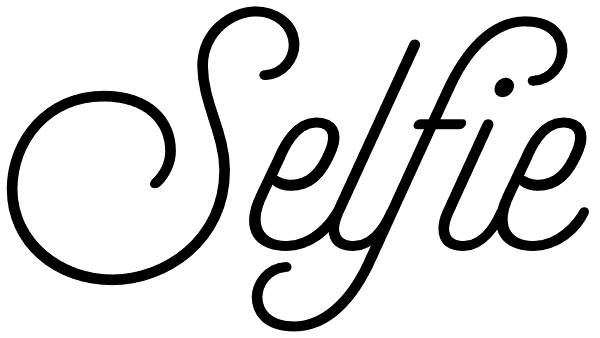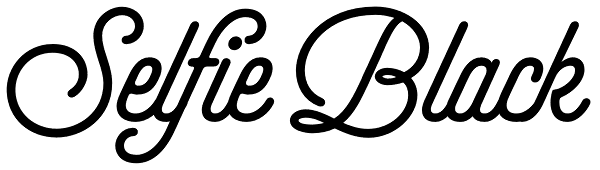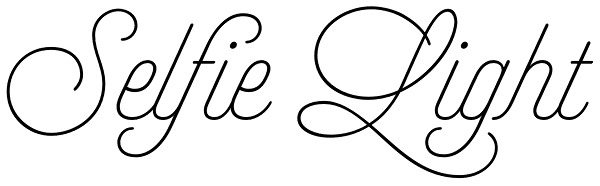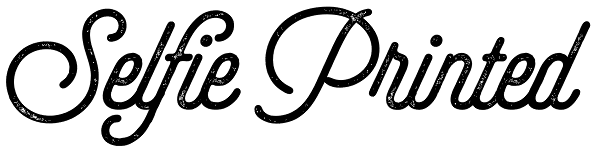
Selfie
-But first, let me take a Selfie!- said that girl of the song and almost all of you at least once this year. While some terms and actions get trendy, some font styles do it too. It wouldn't be crazy to combine these worlds, in fact it happens often...